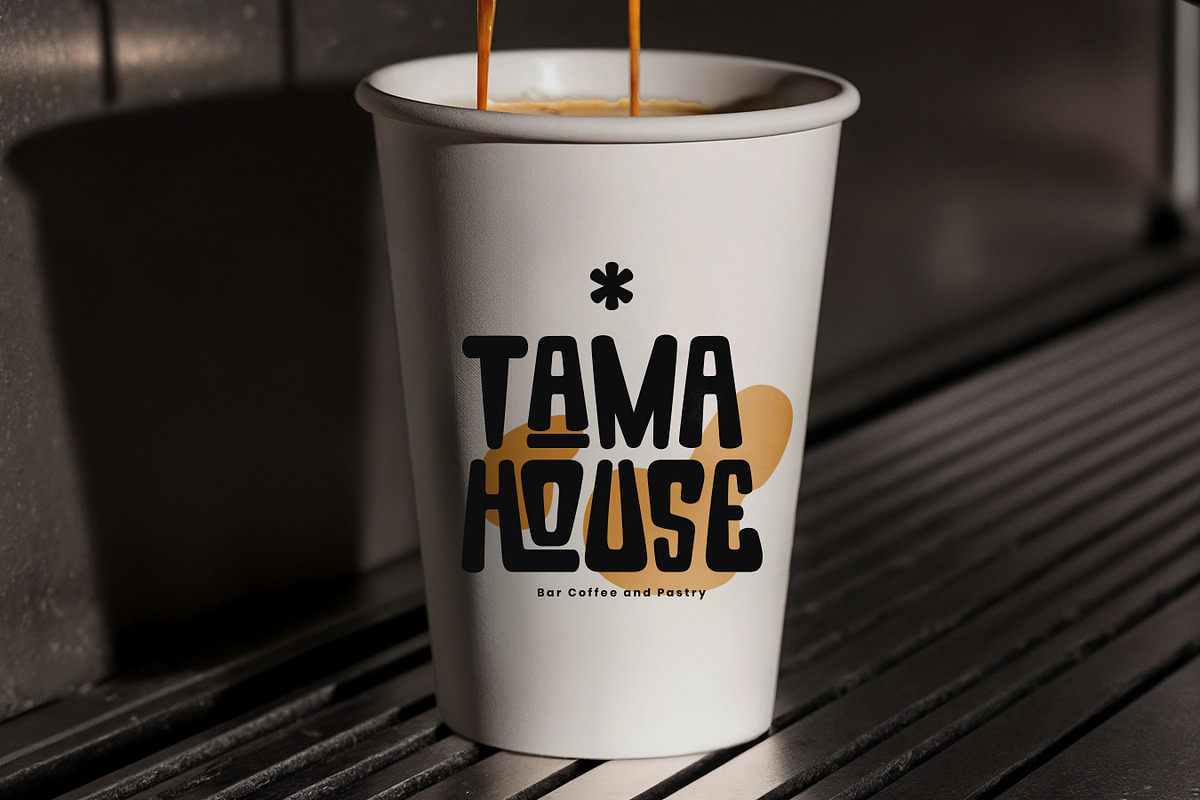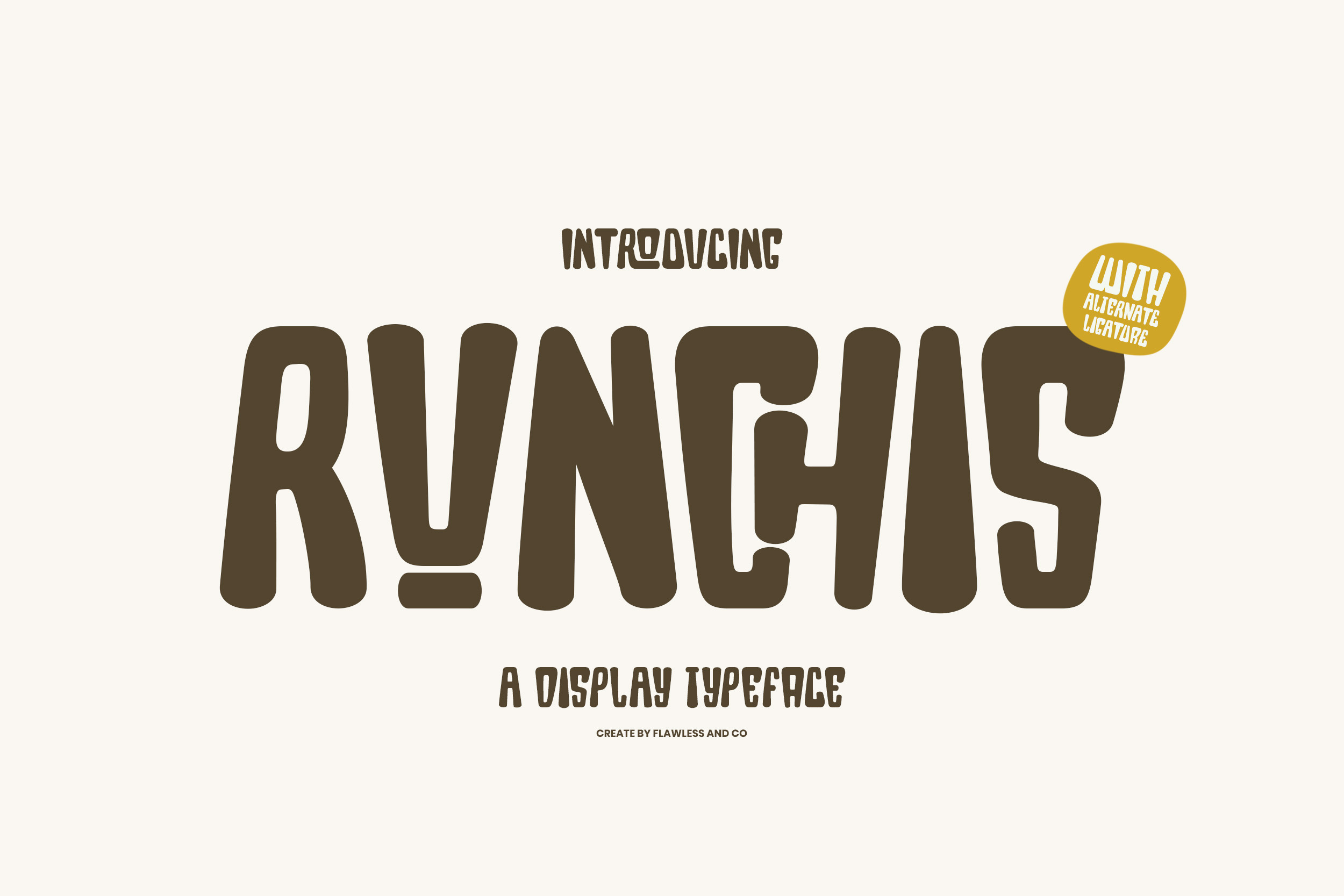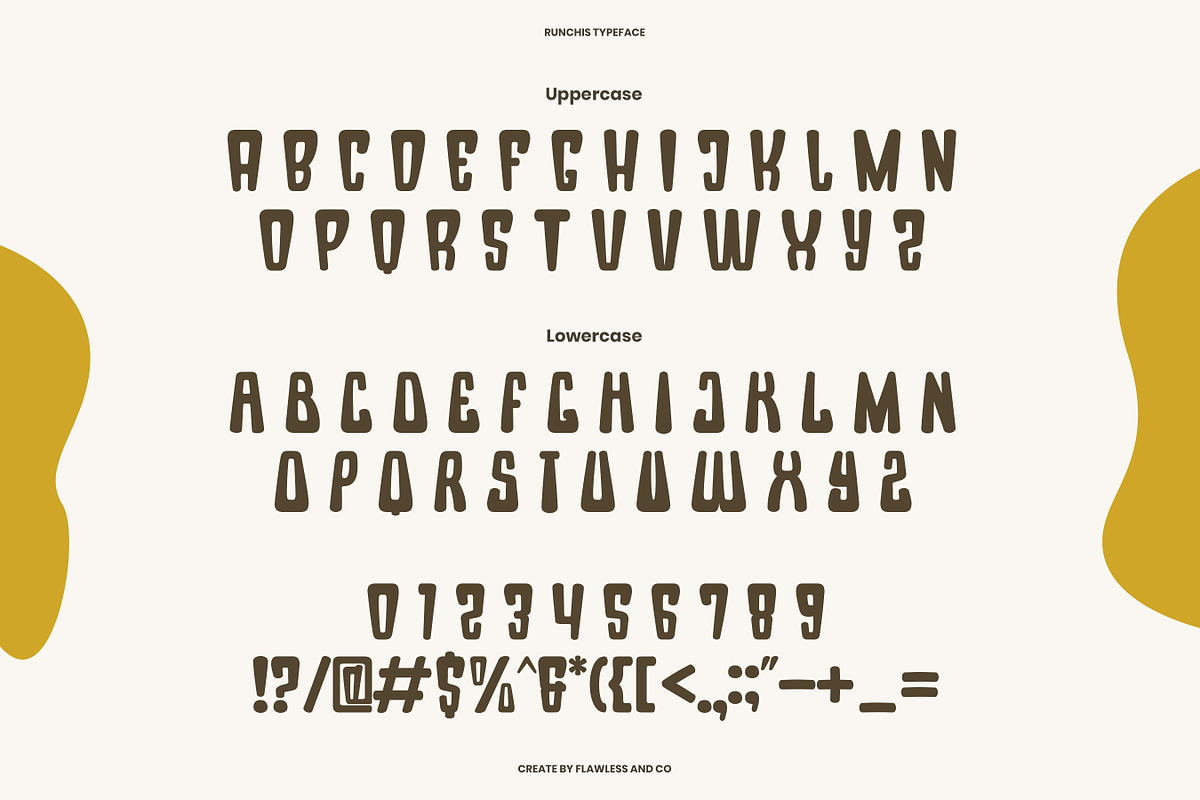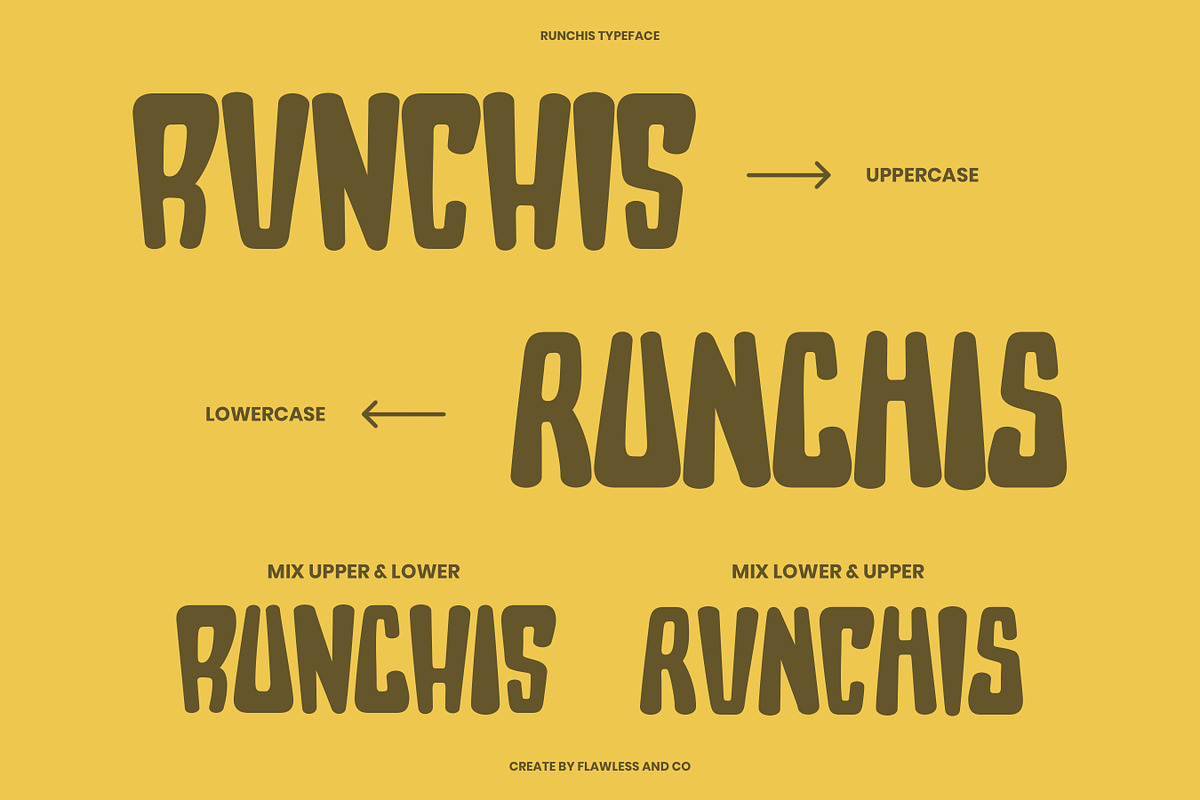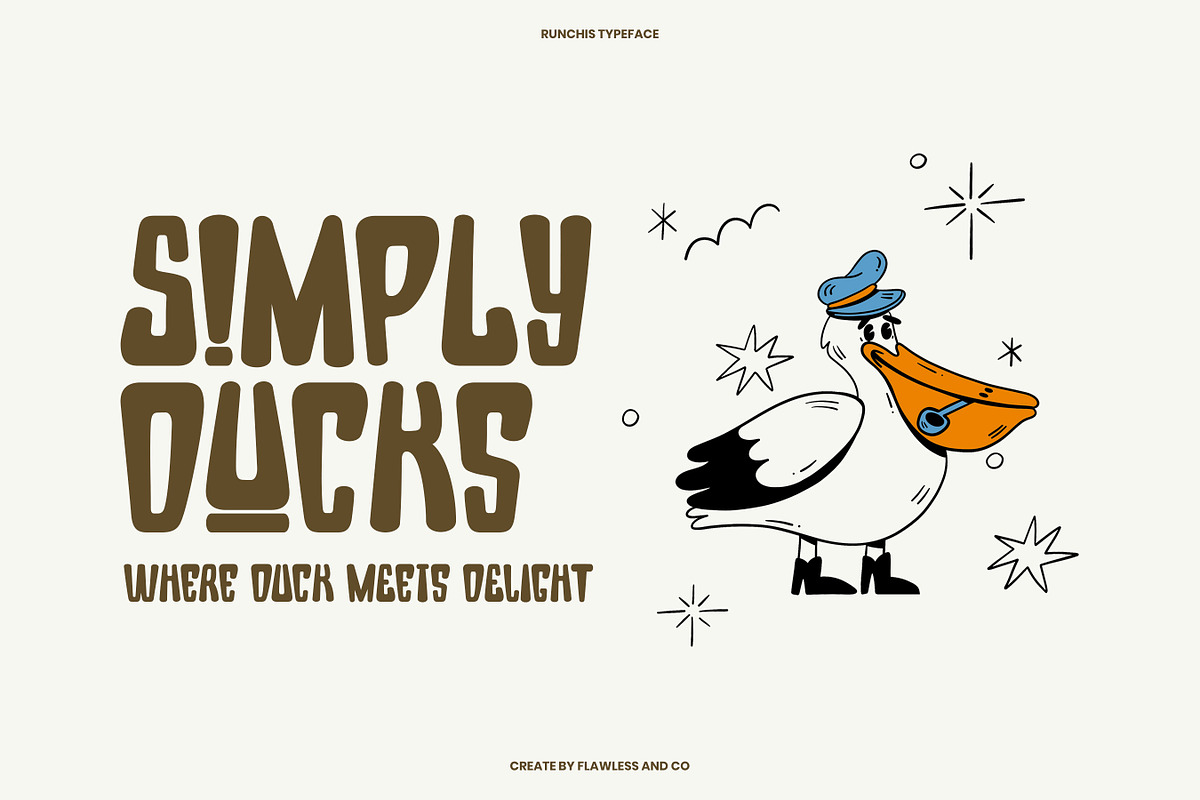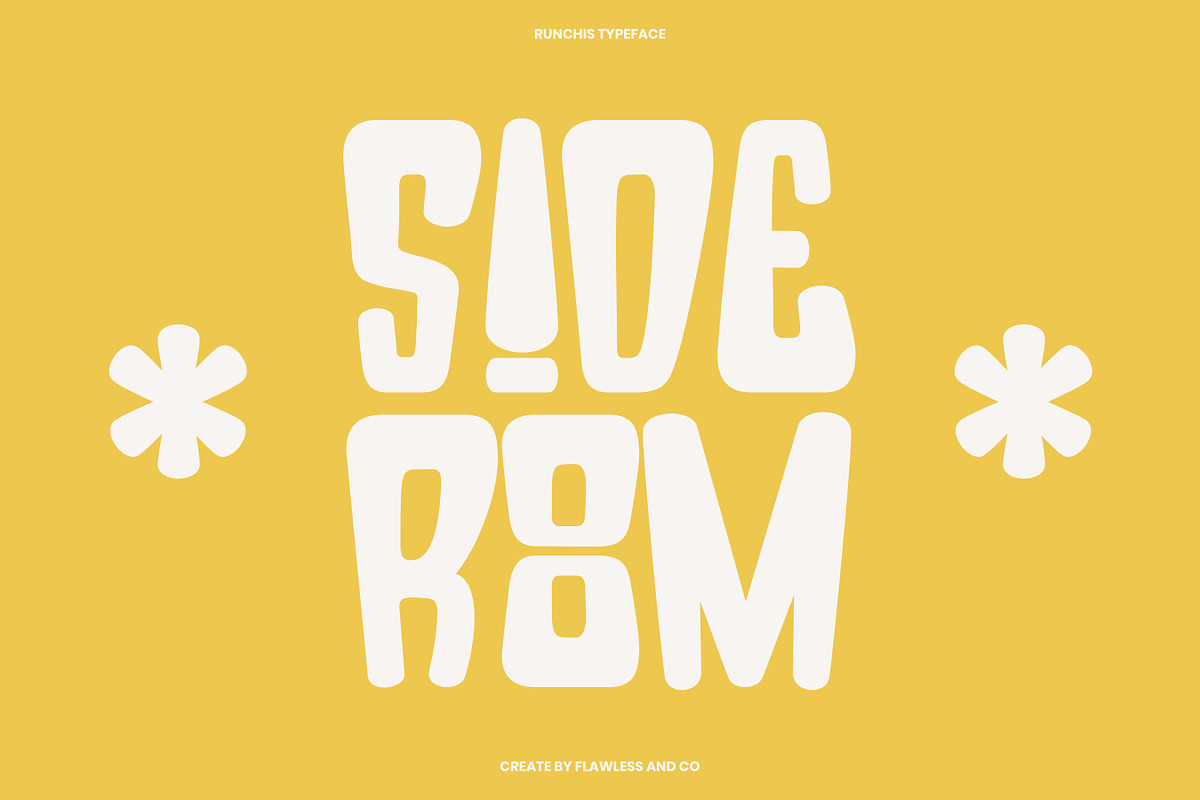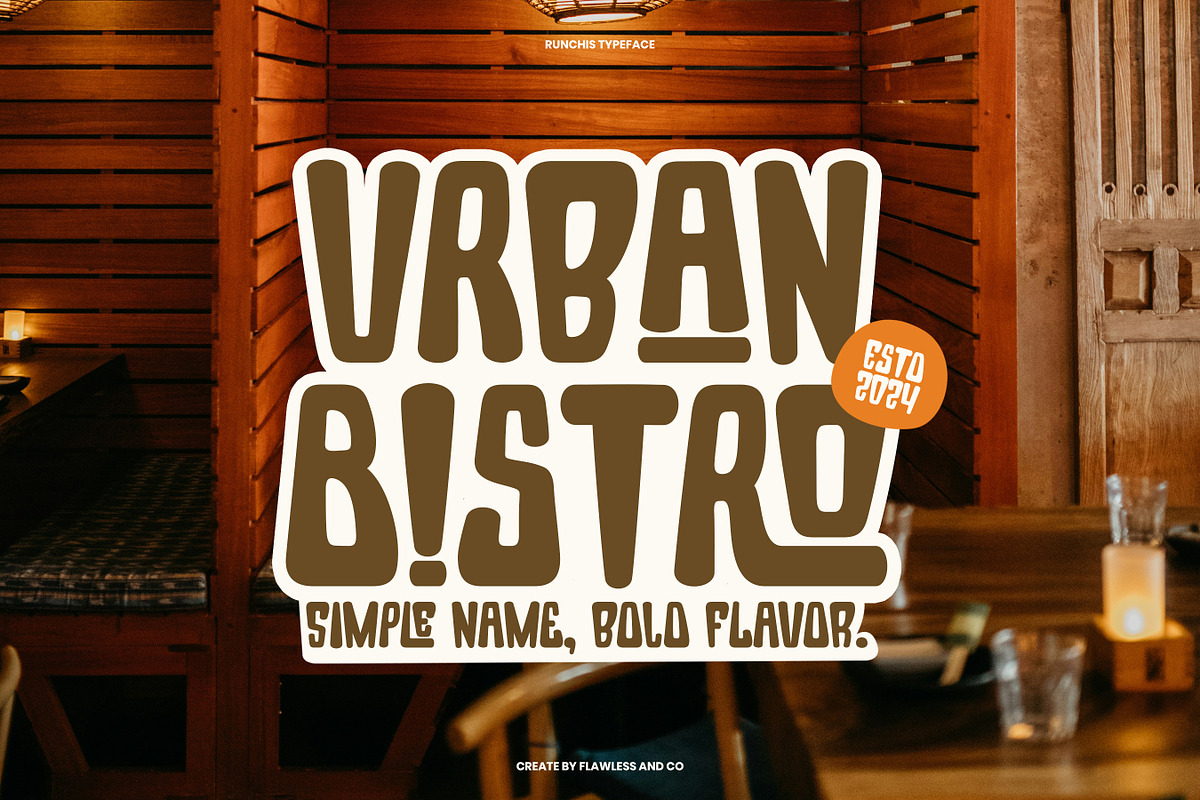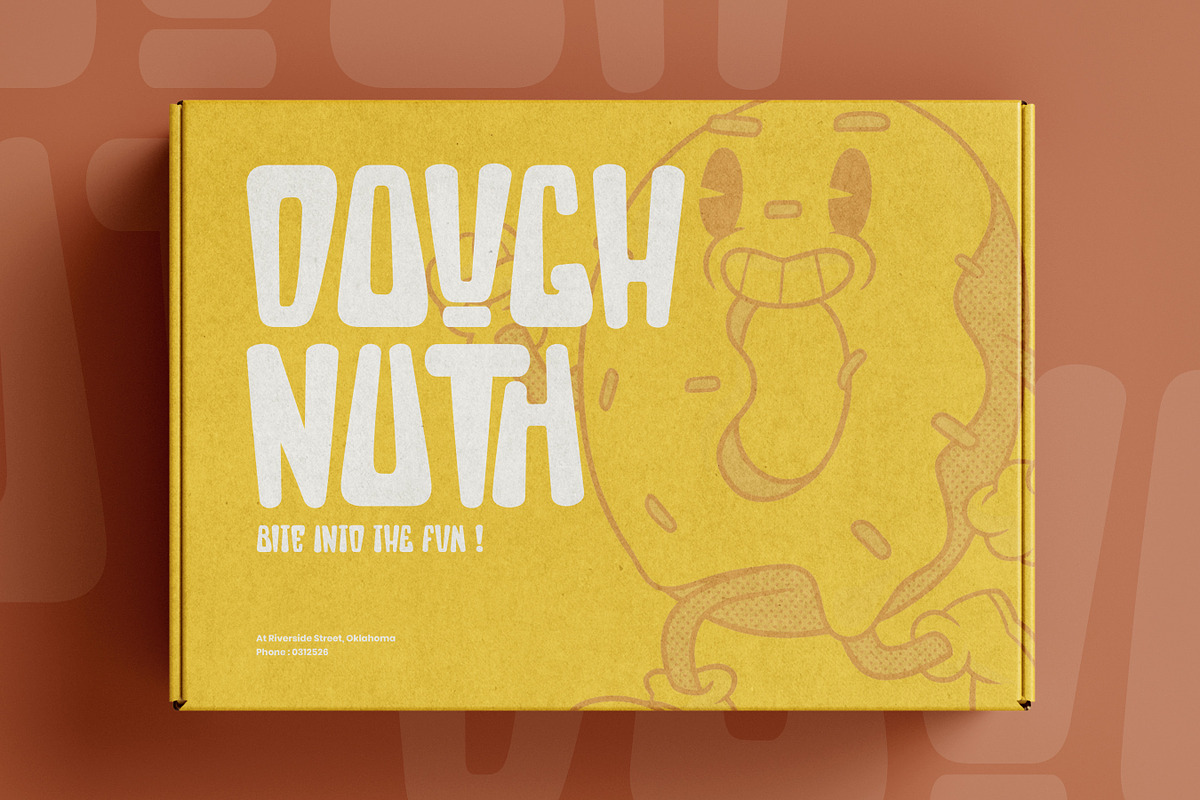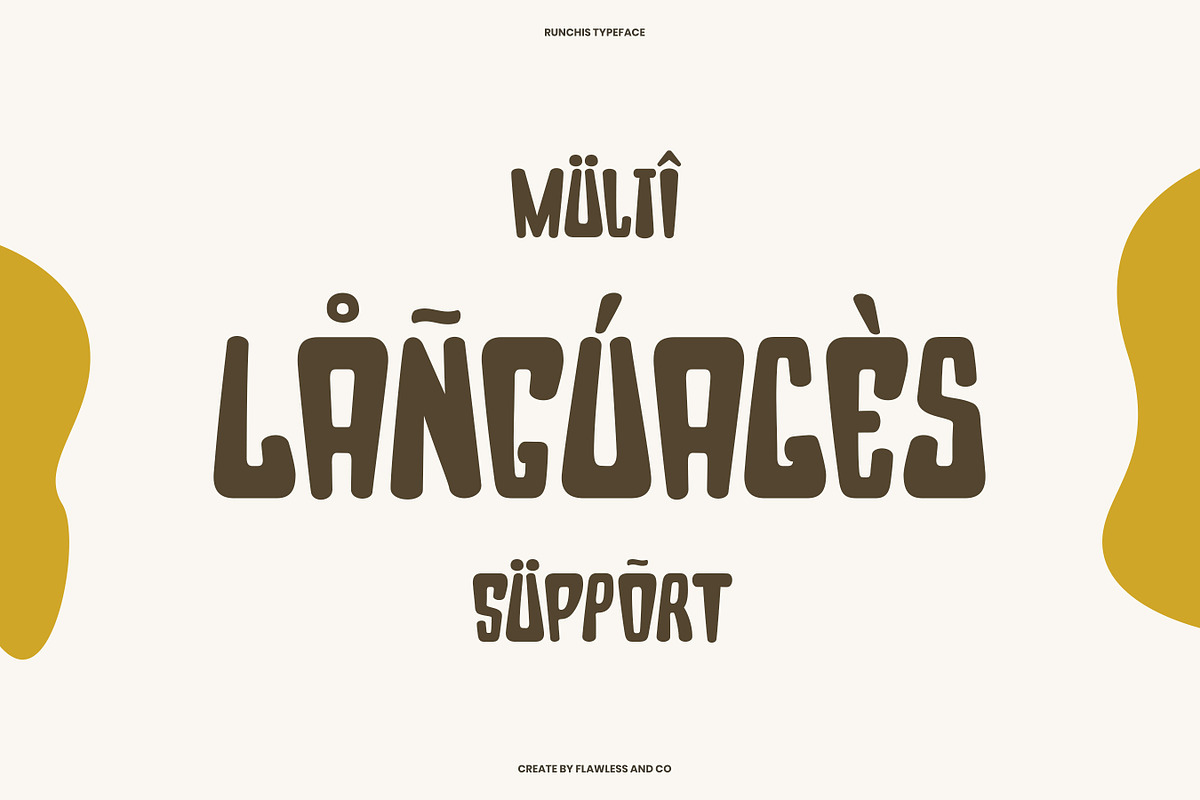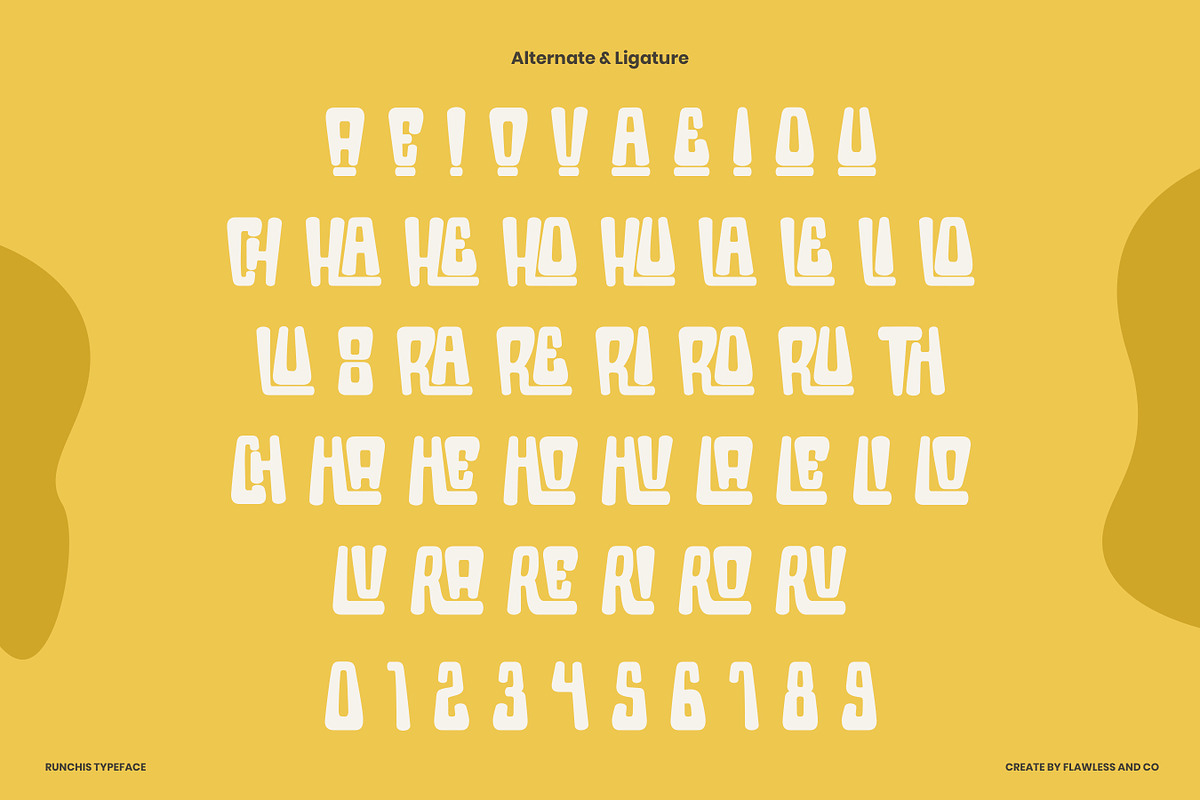
Runchis - Display Typeface Font
RUNCHIS a loud, bouncy, and full-of-character display font that brings fun to the forefront. With chunky curves, playful alternates, and a unique retro-modern blend, RUNCHIS makes your message unmissable. Whether it’s for a brand, a bistro, a toy label, or packaging design – RUNCHIS does more than speak, it shouts with style.
Who Should Use RUNCHIS?
RUNCHIS is made for creatives, designers, and brands who want their visuals to pop with personality. If you're working on a project that needs a touch of fun, boldness, and retro charm — RUNCHIS is your go-to typeface.
It's perfect for:
- Designers creating eye-catching branding
- Food & snack businesses wanting a tasty visual identity
- Kids-related products or playful packaging
- Creatives looking to stand out with bold typography
- Social media creators needing punchy headlines
A Must-Have Font for Brand, Logo, and Gaming Creators and Designers
RUNCHIS is the ultimate choice for creators who love bold, expressive typography. With its playful retro vibes and strong visual impact, RUNCHIS helps brands stand out in the crowded digital space. Whether you're designing snack packaging, building a gaming logo, or crafting a fun brand identity, this font brings energy and personality to every project. It's more than a typeface — it's a creative statement.
Why Choose RUNCHIS for Brand and Logo Projects?
RUNCHIS offers a bold, nostalgic aesthetic that instantly captures attention. Its thick, curvy letterforms are perfect for creating standout logos, dynamic brand visuals, and playful packaging. Whether you're designing for food, retro games, or lifestyle products, RUNCHIS delivers a unique blend of vintage charm and modern appeal — making your brand identity memorable and full of character.
Suitable For:
- Logo design and branding projects
- Gaming titles and retro-inspired visuals
- Food and snack packaging
- Apparel and merchandise design
- Social media graphics and display headers
- Vintage posters and editorial layouts